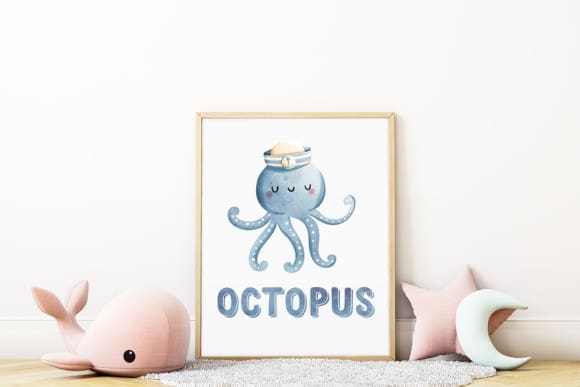
Flawfull Playful Font
Flawfull Playful Font is a playful and cute display font. It’s chic style and neat vibe will make it great for various creative projects, be it inspirational wall posters or for communicating your brand.